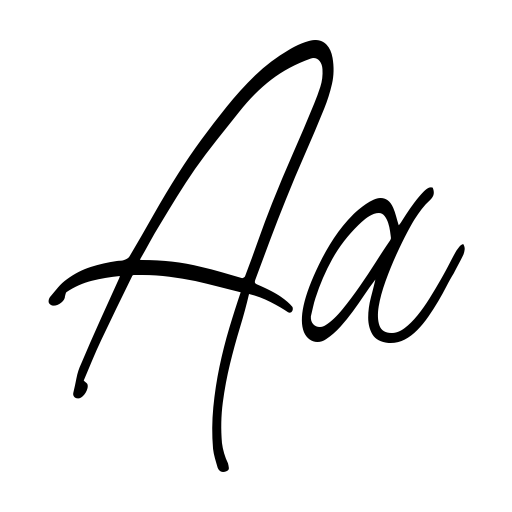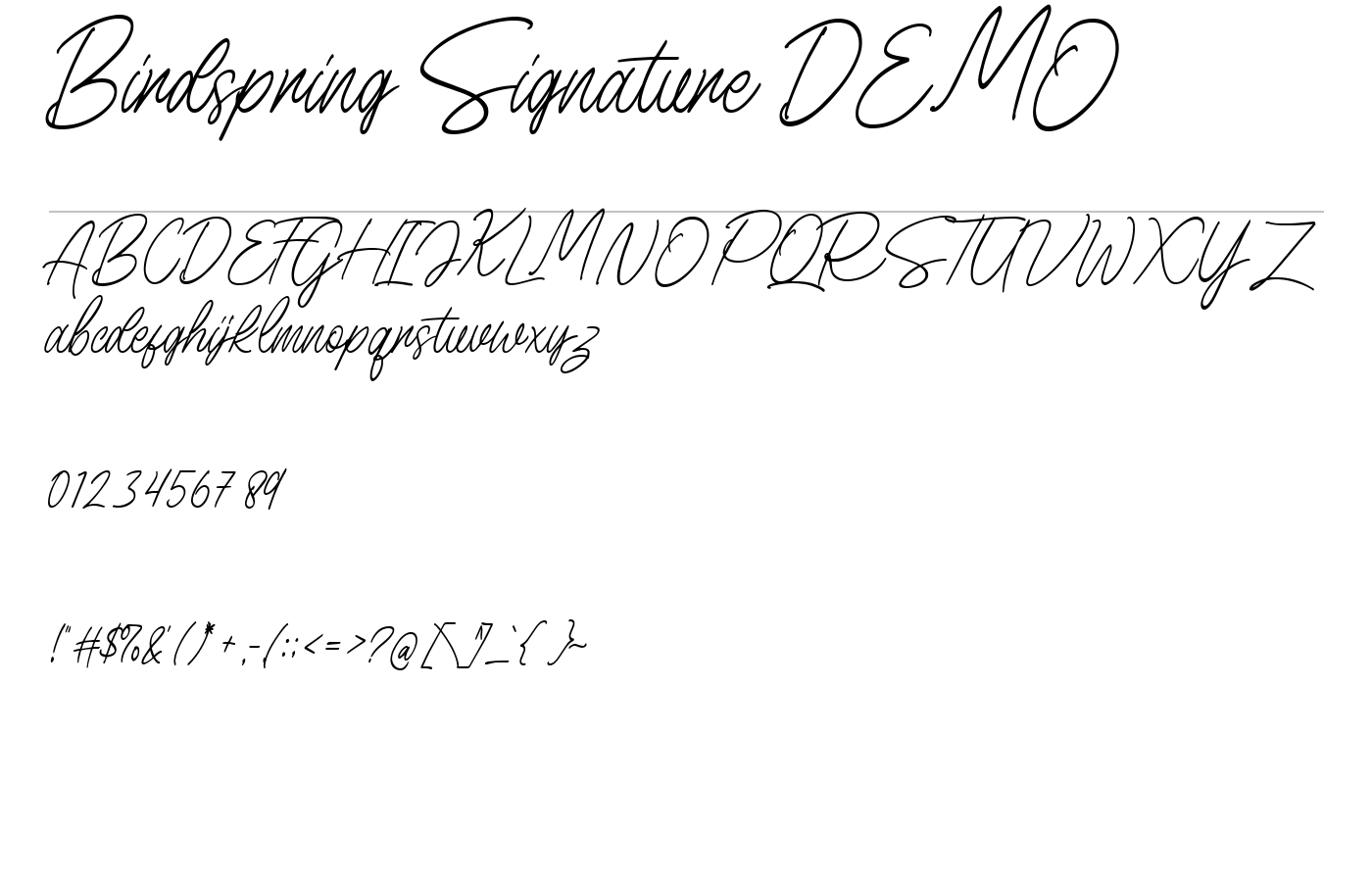
Birdspring Signature DEMO is a delicate, script-style font that mimics elegant handwriting with its slender, flowing strokes and slightly varied line thickness. It has a light weight and tall, narrow letterforms that give it a graceful, personal touch, perfect for adding a sophisticated, intimate feel to branding, invitations, or lifestyle blogs. Its airy, natural style works best for logos, signatures, and headlines where a refined yet approachable character is desired.
Birdspring Signature DEMO Font
About Birdspring Signature DEMO Font
| Font family | Birdspring Signature DEMO Font |
| Designer | Gustian Agung Asprilla |